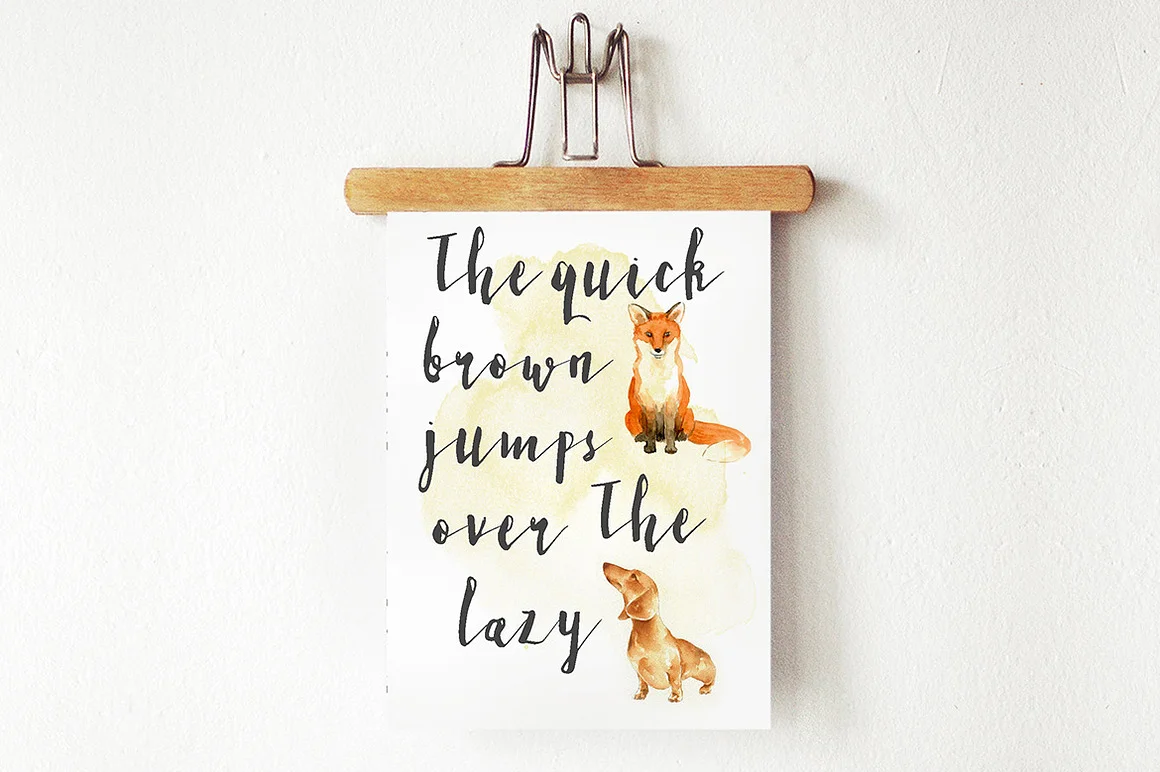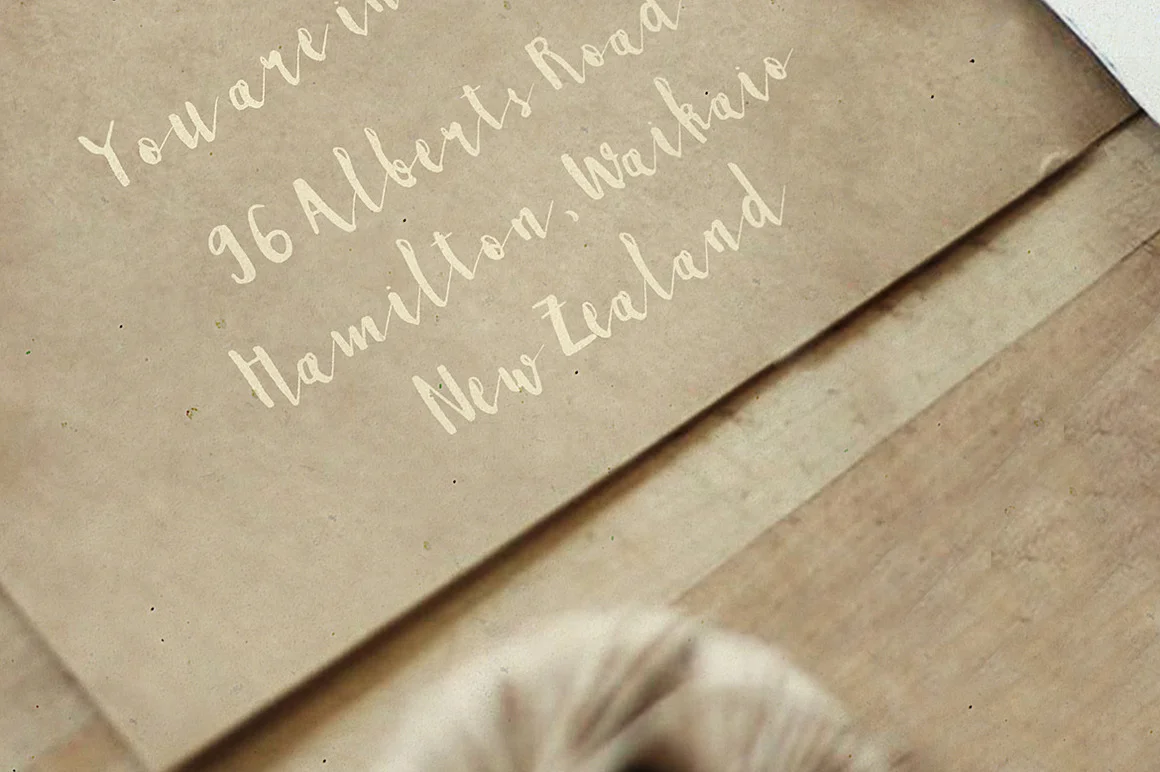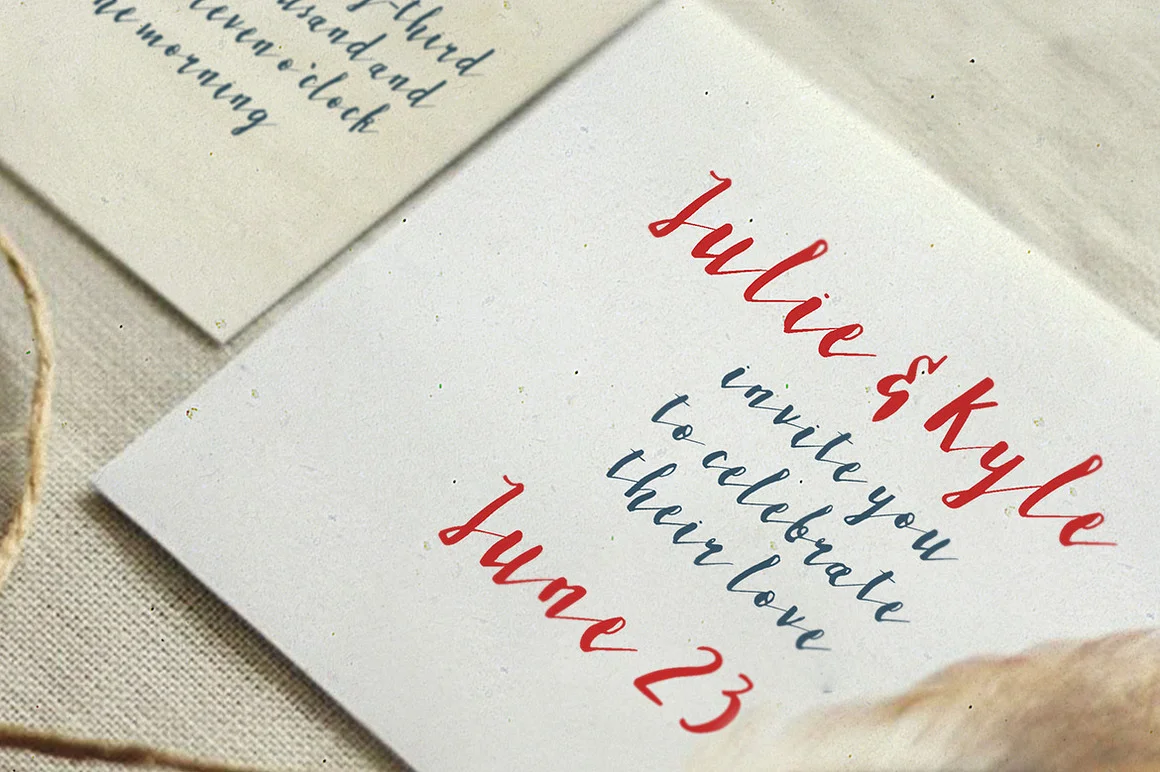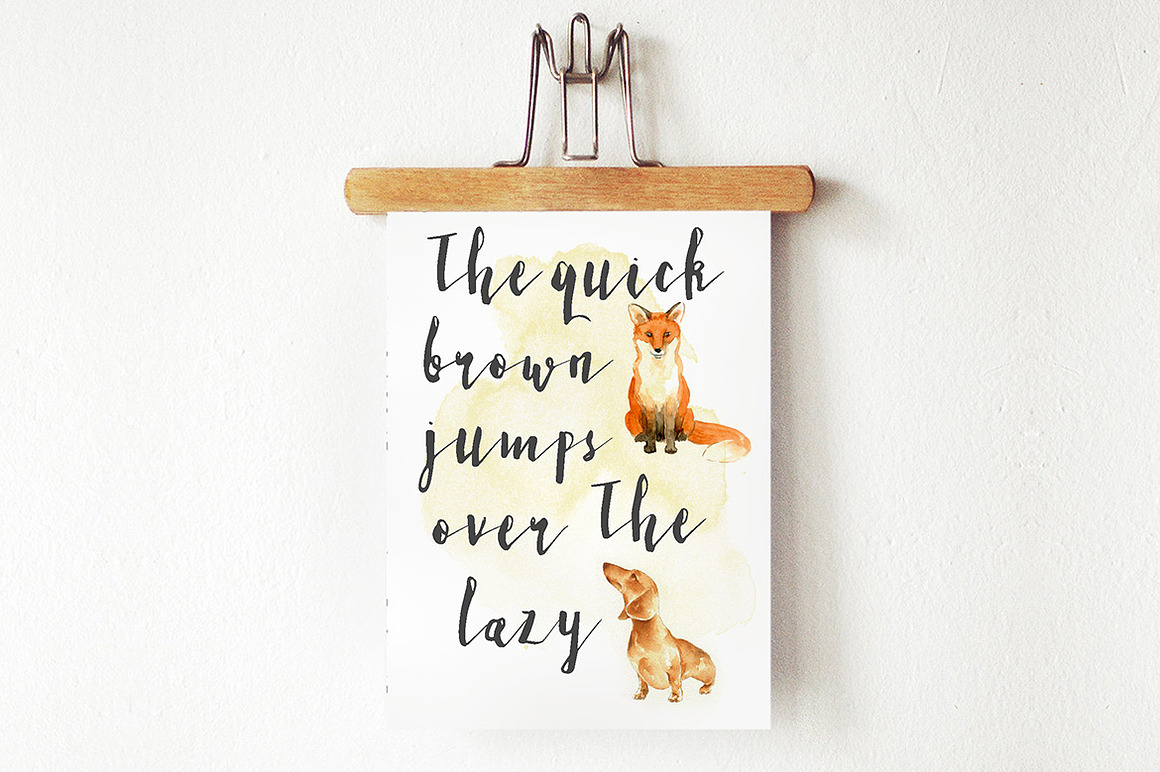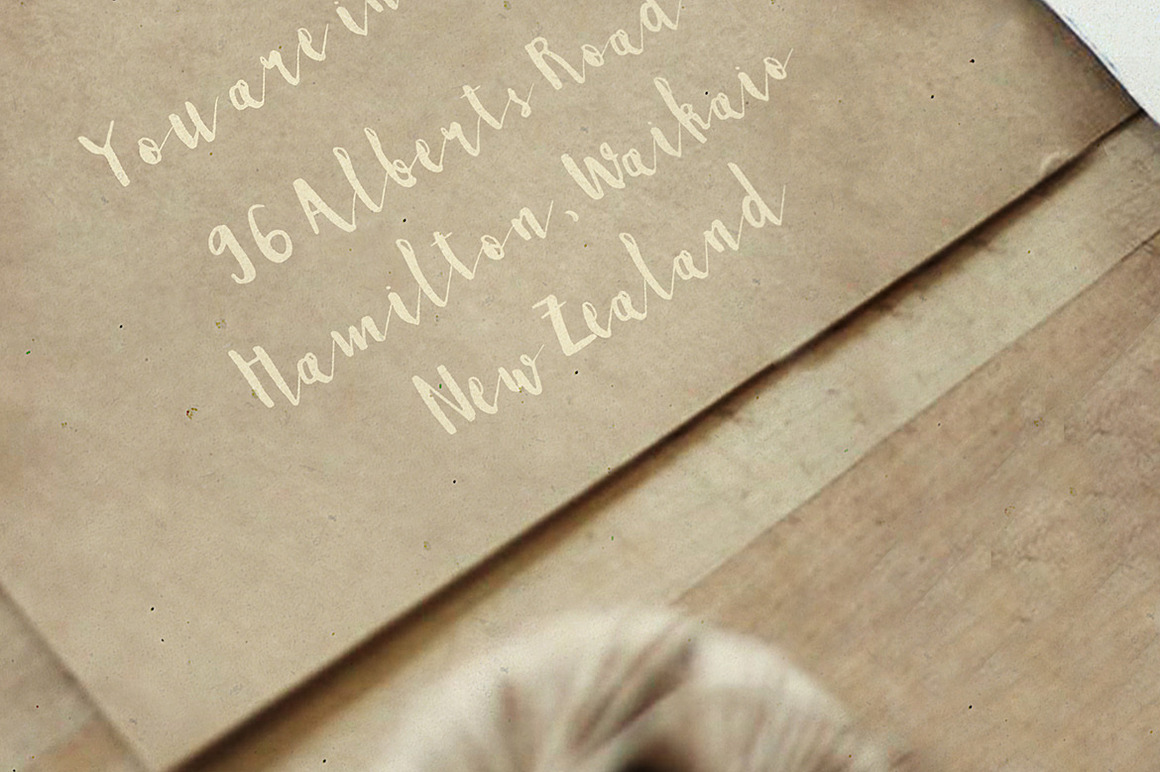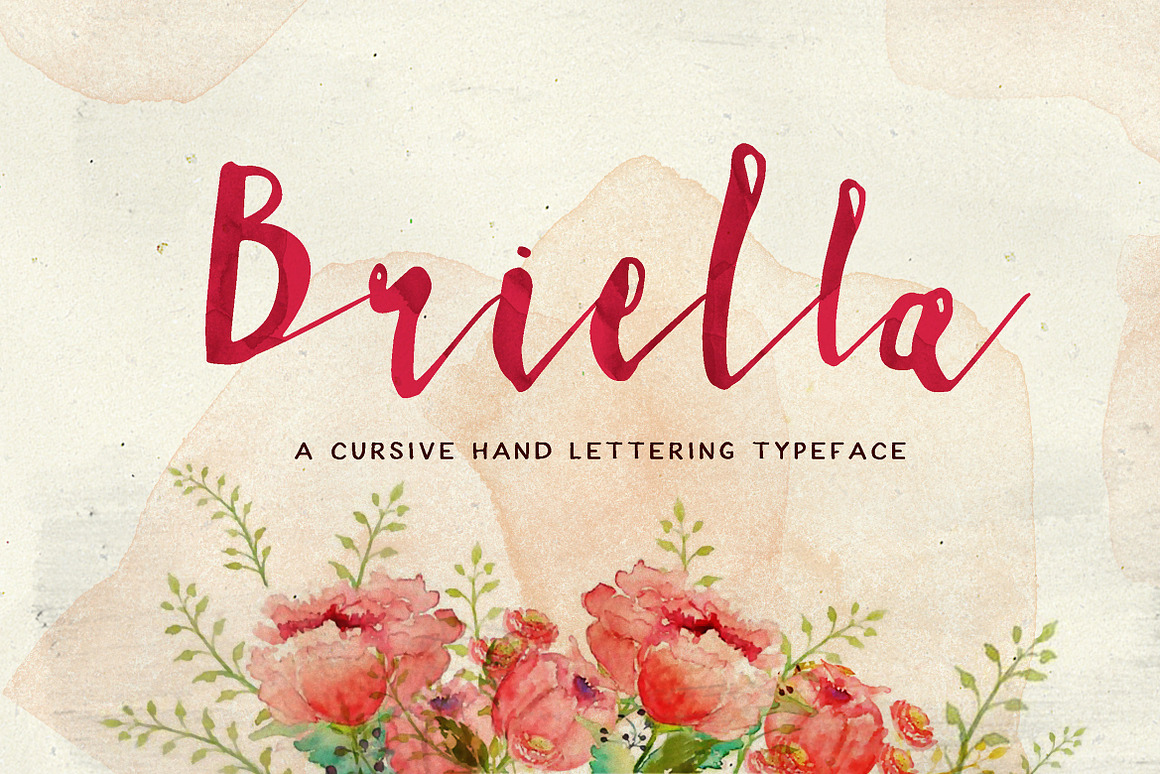
Briella Script Font
This Briella Script Font is perfect for elegant bridal boutiques, sophisticated wedding planners, luxury feminine brands, graceful beauty salons, romantic greeting cards, upscale fashion labels, refined personal branding, delicate jewelry designers, charming lifestyle blogs, and enchanting feminine applications.
What makes this Briella Script Font exciting is its feminine grace that captures the delicate beauty and sophisticated charm of modern feminine elegance and romantic sophistication. The font features flowing script letterforms with graceful characteristics that convey feminine refinement, romantic elegance, and sophisticated beauty. Its enchanting character and grace-inspired design make it ideal for brands seeking to communicate feminine excellence, romantic sophistication, and elegant beauty in luxury lifestyle and wedding markets.
The Briella Script Font family includes regular, medium, and bold weights with romantic alternates, feminine variants, and graceful flourishes. This comprehensive elegant font family provides designers with sophisticated typographic tools to create enchanting compositions while maintaining the feminine character essential for luxury brands and romantic communications.
Wedding professionals and feminine luxury brands consistently choose Briella Script Font for projects requiring authentic feminine appeal and romantic sophistication. This font's distinctive graceful character perfectly captures the feminine excellence and romantic elegance that resonate with audiences who appreciate feminine beauty, romantic luxury, and brands that embody sophisticated grace and feminine refinement.
The enchanting construction of Briella Script Font showcases elegantly designed letterforms with feminine proportions that ensure exceptional beauty across all luxury applications. Its graceful appearance and romantic character create memorable impressions while maintaining the readability necessary for effective feminine communication and luxury materials.
Professional designers appreciate how Briella Script Font brings immediate feminine authenticity and romantic elegance to brand communications. The font's graceful nature allows organizations to communicate feminine excellence and romantic sophistication while maintaining the professional quality necessary for effective positioning in luxury feminine and wedding markets.
The sophisticated appeal of Briella Script Font makes it particularly effective for brands emphasizing feminine grace, romantic elegance, and sophisticated beauty. Its enchanting character resonates strongly with audiences who appreciate feminine luxury, romantic sophistication, and brands that represent the delicate refinement and graceful beauty of modern feminine excellence.
Whether developing branding for luxury bridal companies or creating materials for sophisticated feminine lifestyle brands, Briella Script Font provides the elegant typographic foundation that feminine brands need to communicate their graceful excellence, romantic sophistication, and the enchanting beauty that defines feminine luxury and romantic elegance achievement.